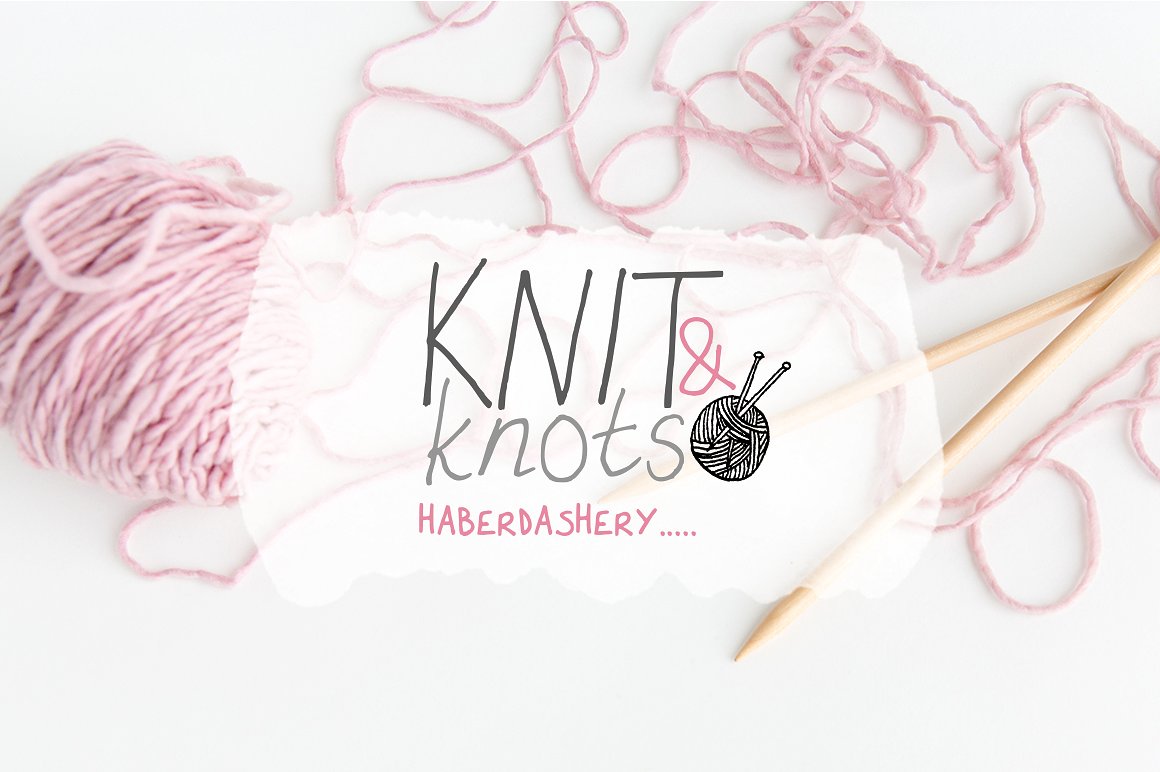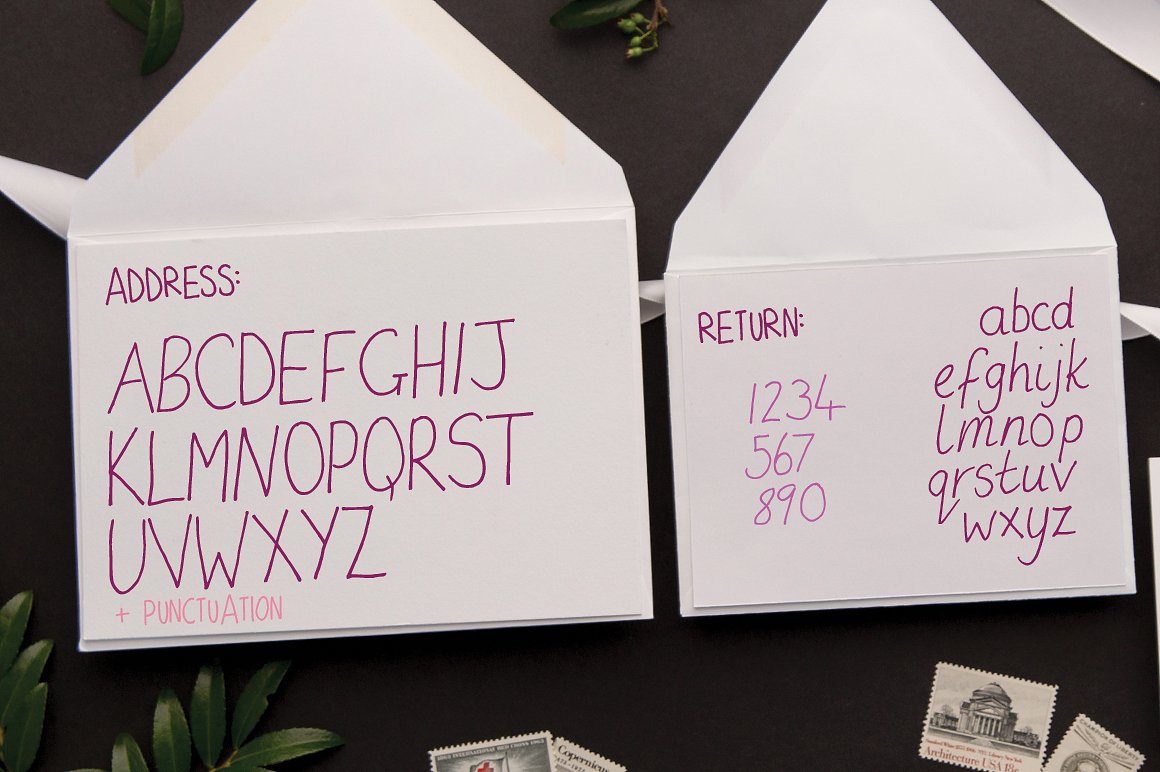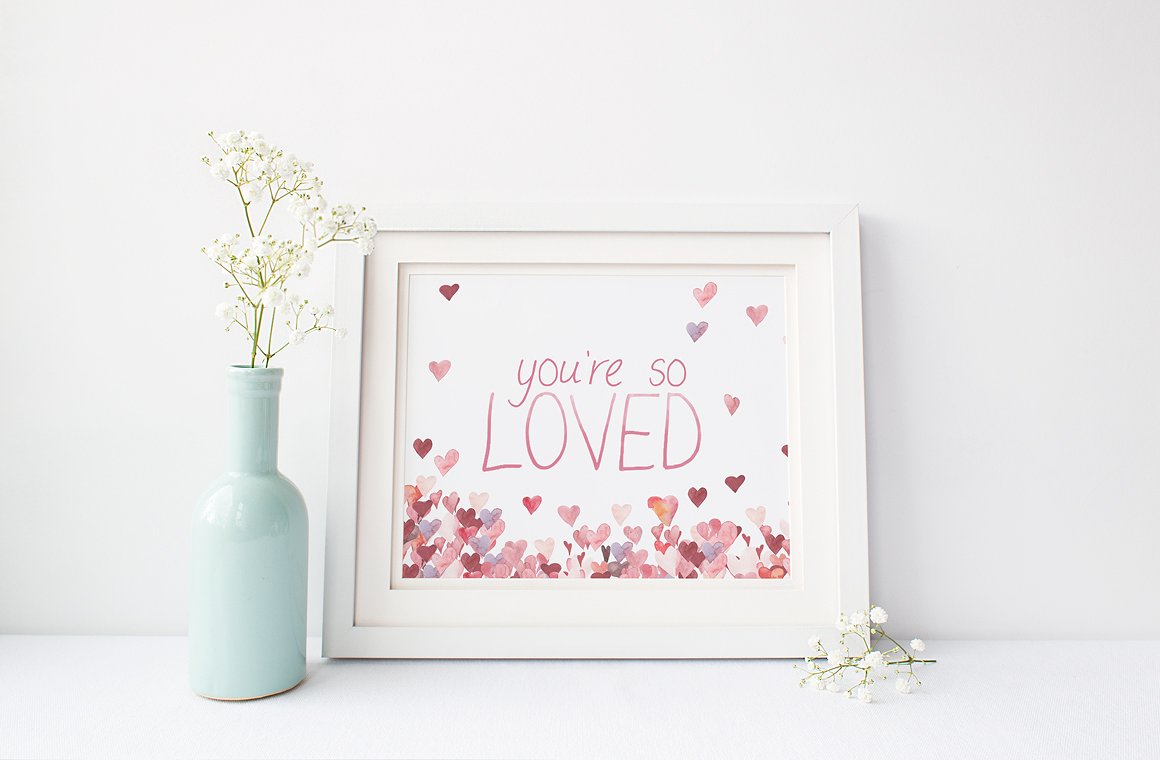
Introduction to Post & Love Font
As a designer, have you ever been stuck on a creative project, searching for the perfect font to give it that extra oomph? You’ve scrolled through pages of generic, mass-produced fonts, only to end up with something that just doesn’t feel like you. That’s why we’re excited to introduce you to the Post & Love Font, a beautiful, hand-written font that’s sure to bring your designs to life.
With its unique, handwritten style, the Post & Love Font is the perfect addition to any design project. Whether you’re creating labels, logos, or just want to add a touch of personality to your typography, this font is sure to impress. Plus, with its transparent background, you can easily layer it with other design elements to create a truly unique look.
Key Features of Post & Love Font
- High-quality, unique design for creative projects, suitable for various applications, including invitations, greeting cards, and digital art.
- Designed with a transparent background, allowing for easy customization and integration into various design elements.
- Features a clean and elegant style, making it perfect for romantic, vintage, or whimsical-themed projects.
- Perfect for designers looking for a unique, high-quality design resource for their creative projects, including digital art, print materials, and web design.
Honest Review: Post & Love Font
As a designer, I’m always on the lookout for high-quality design resources to elevate my creative projects. The Post & Love Font is one such resource that caught my attention.
What works well about this font is its elegant and minimalist design. It’s perfect for projects that require a touch of sophistication and simplicity. The font is also available for free download, making it an excellent choice for designers on a budget.
- ✨ High-quality design with a transparent background, making it versatile for various design applications.
- ✨ Excellent for creating visually appealing headings and titles.
- ✨ Suitable for both print and digital design projects.
However, I did encounter some limitations. The font family is relatively small, which may not be ideal for projects that require multiple font styles.
- ⚠️ Limited font family options, which may restrict creative freedom.
- ⚠️ Not ideal for projects that require extensive font customization.
Overall, I’m impressed with the Post & Love Font. It’s a great addition to any designer’s toolkit, especially for free. With its high-quality design and transparent background, it’s perfect for various creative projects.
The Post & Love Font is ideal for use in creative projects such as social media graphics, blog posts, and marketing materials. Its high-quality design and transparent background make it perfect for use in logos, icons, and other design elements.